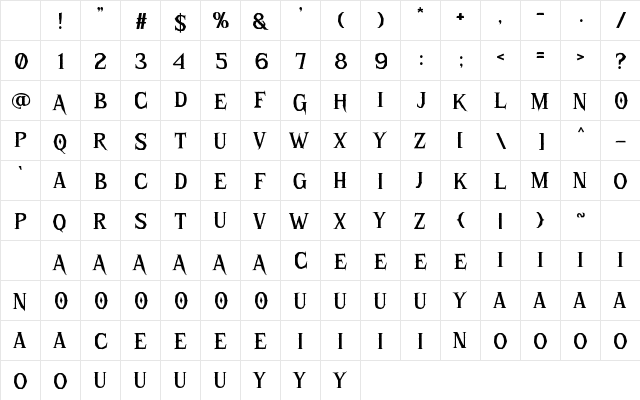
Complete KONSTANTINE Regular glyph index. Displaying only characters natively supported by KONSTANTINE Regular font.
KONSTANTINE is a composed and adaptable typeface that performs quietly and consistently across a wide range of design contexts.